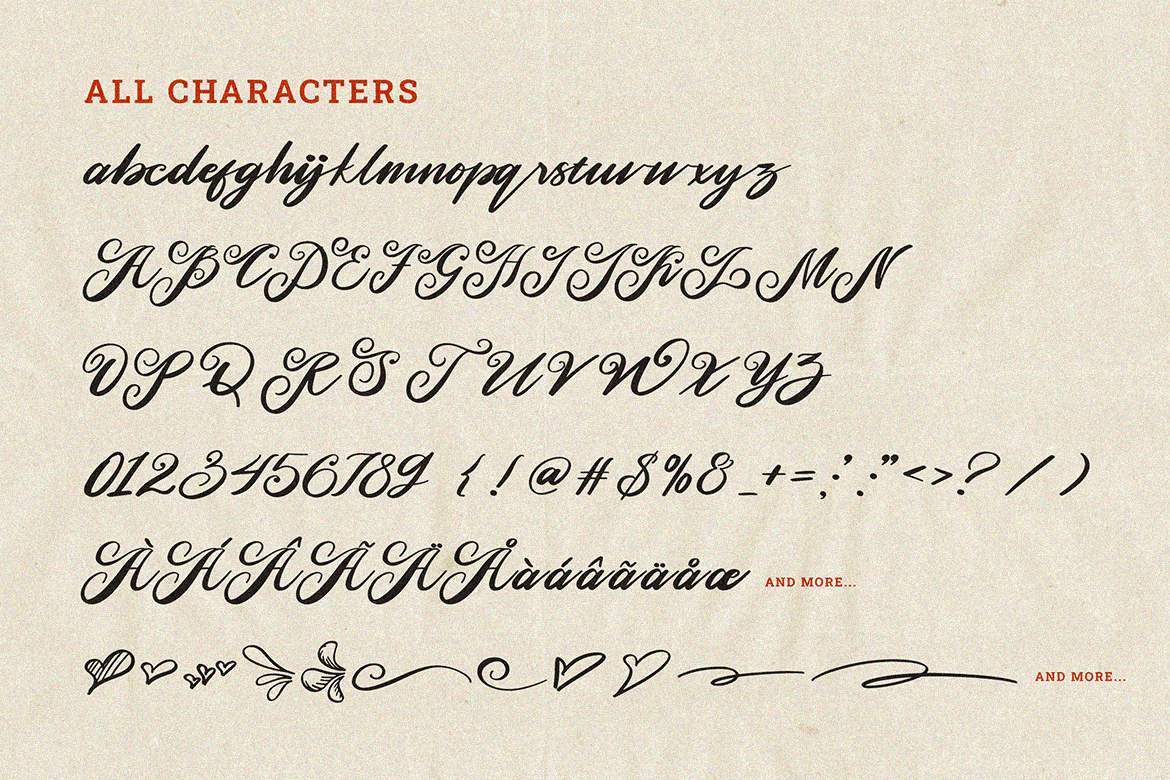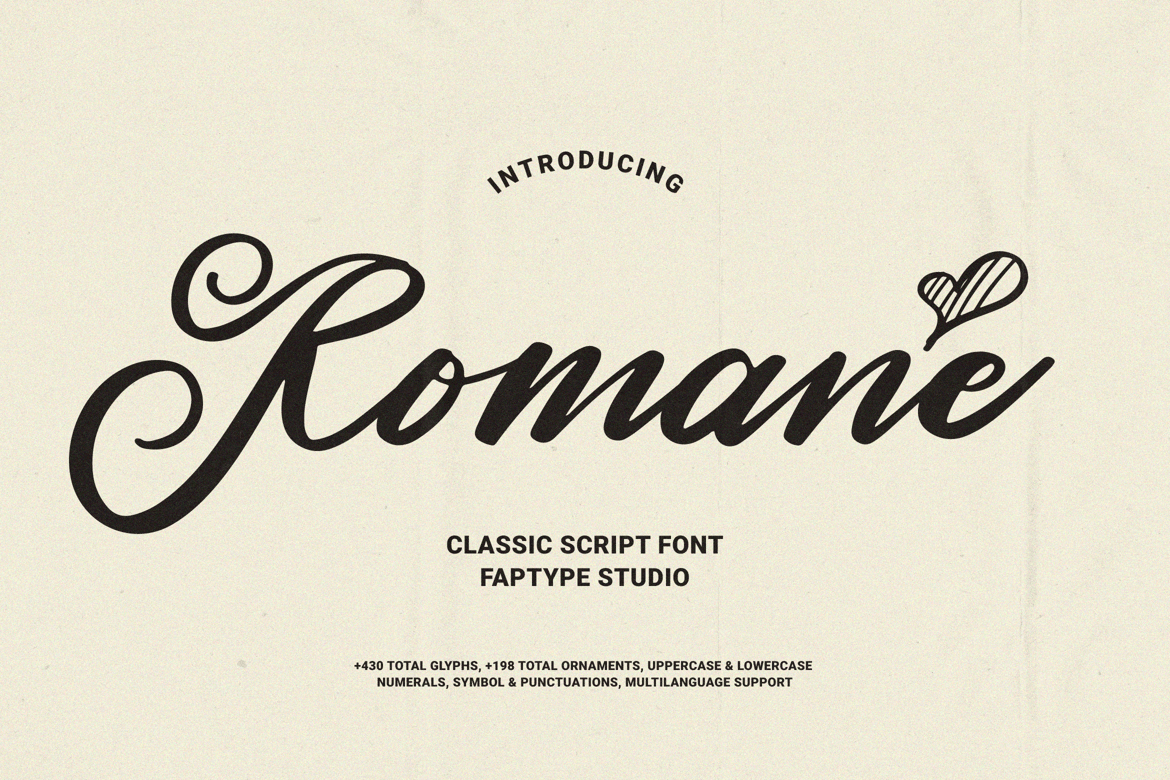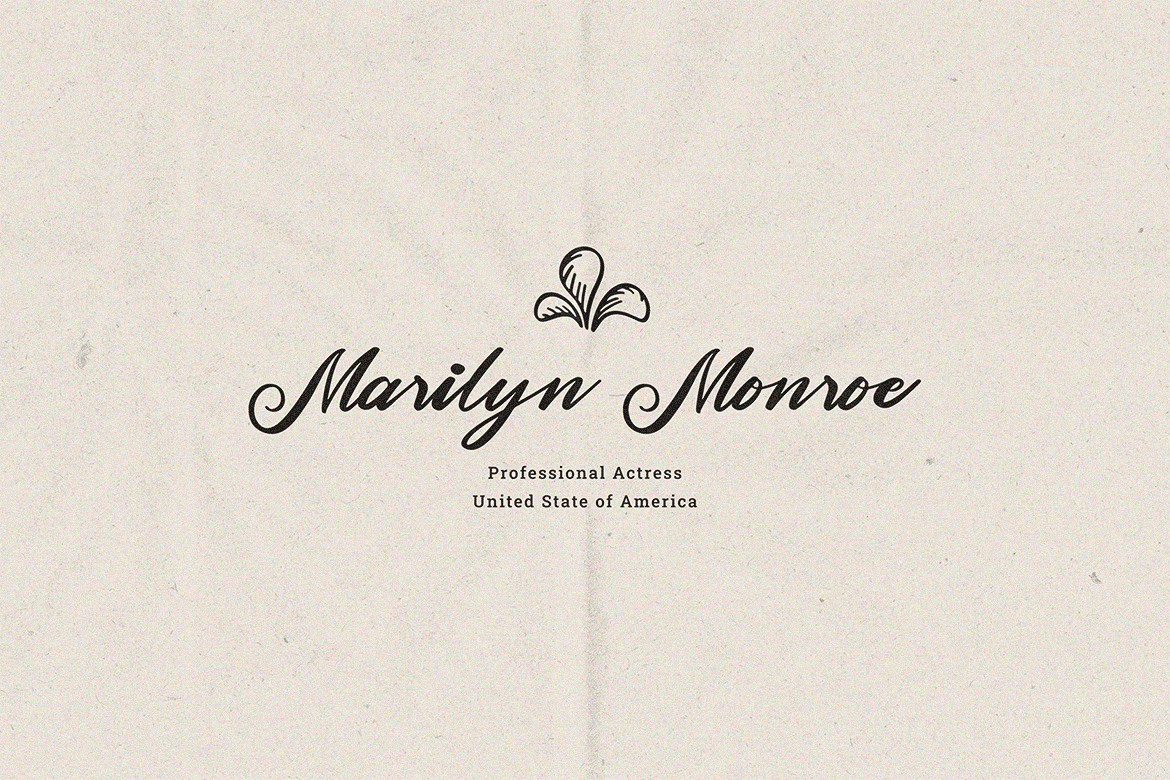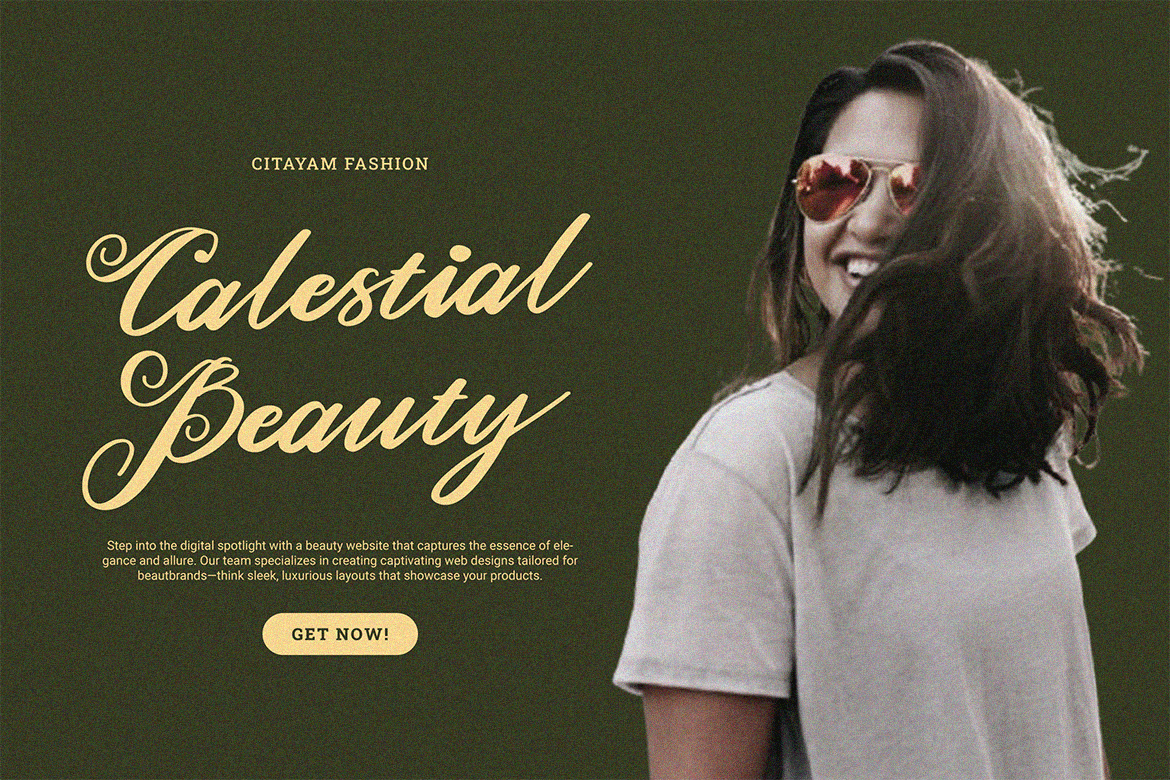
Romane | Classic Handwritten Script Wedding Font
Romane Features:
* A full set of upper & lowercase characters
* Numbers & punctuation
* Multilingual language support
* +429 Glyph
* 198 Brush Swashes